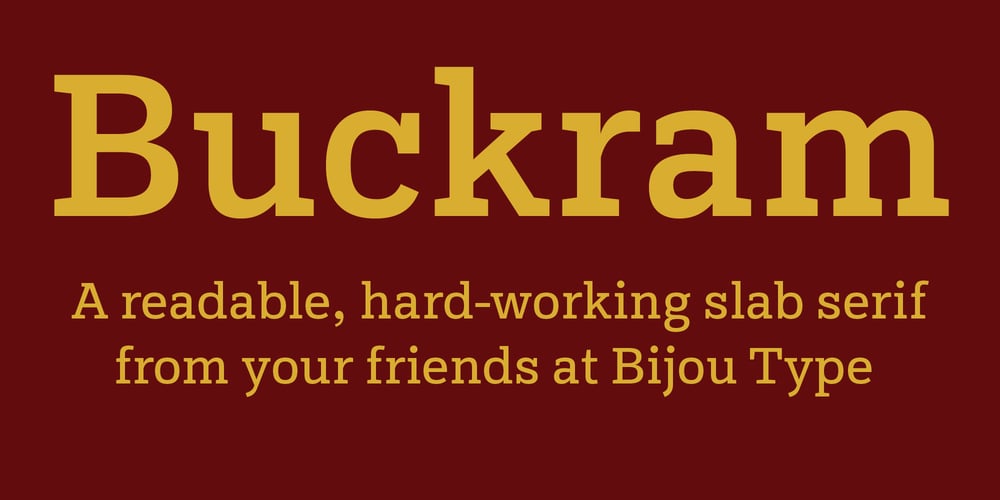
Buckram VF Font Family was designed by Dan Rhatigan and published by Bijou Type. Buckram VF contains 1 styles and family package options. Buckram Variable is a readable, hard-working slab serif, as hard-wearing and functional as its namesake cloth. It’s shapes are sturdy and clear, yet still have a touch of warmth and delicacy for your editorial or promotional needs. Buckram comes in seven weights, with an extensive Latin character set that supports approximately 390 languages.